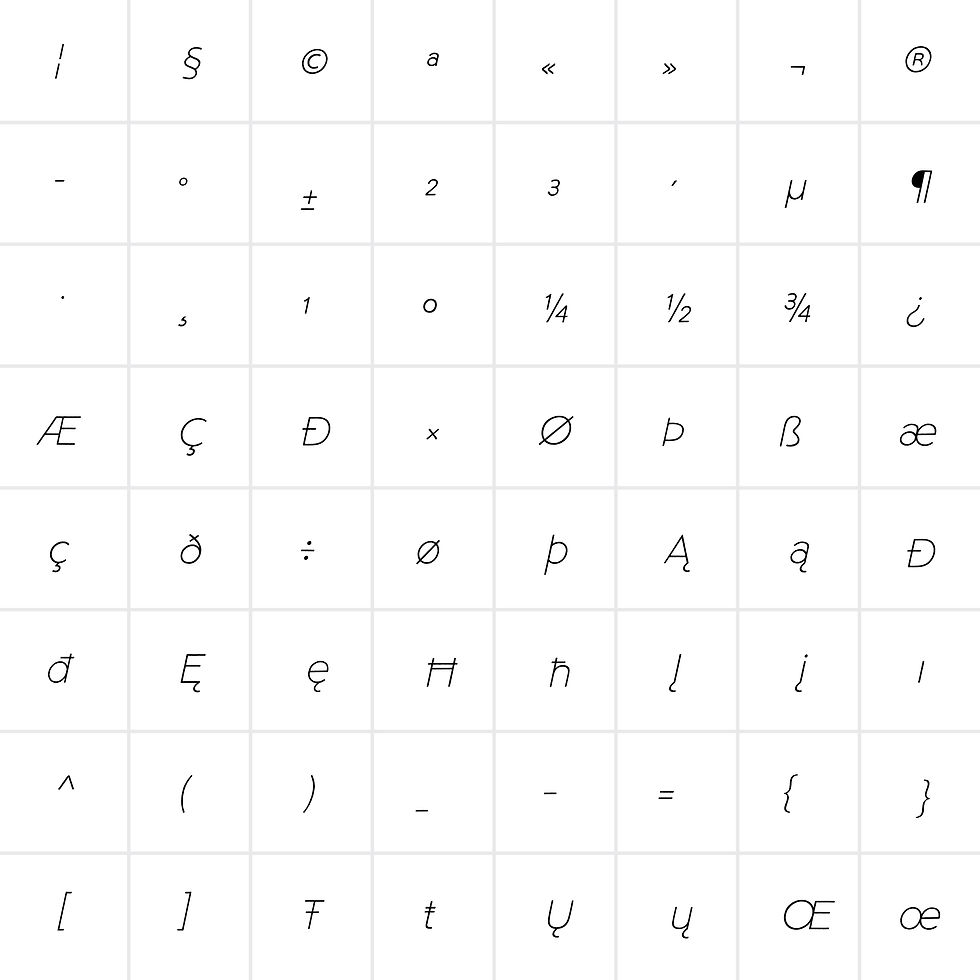
NORTHWOODS THIN ITALIC FONT is an italic, handwritten, sans serif headline font with capital and lowercase letters. Northwoods comes with latin pro characters.
Use Northwoods for packaging, magazines, layouts, web design, corporate identity and marketing.